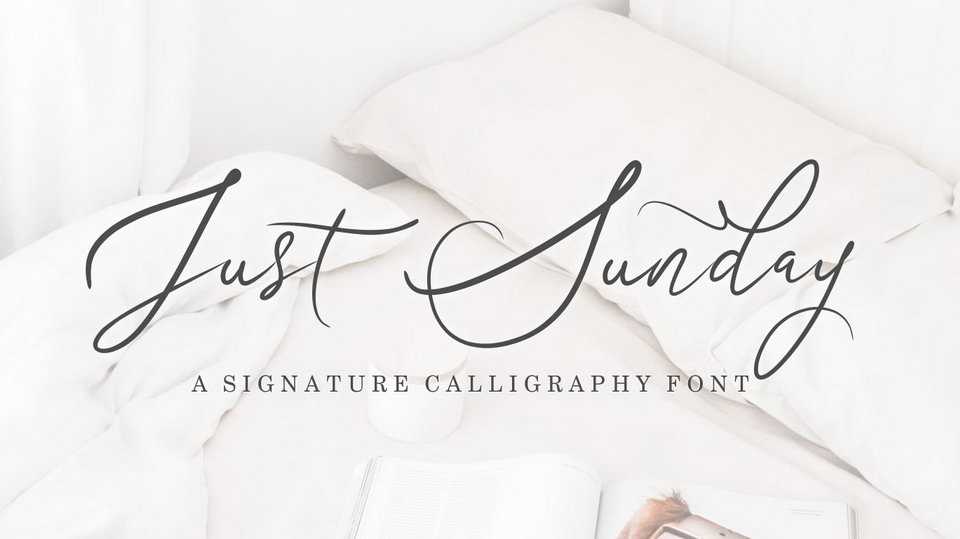
Just Sunday Script Font › Fontesk – Download Grátis
Download Just Sunday font, a fun script font with a smooth, handwritten style, which is perfect for branding projects, product packaging, and more! It can be used simply as a stylish text overlay to any background image, or anything requiring a sprinkle of elegance!